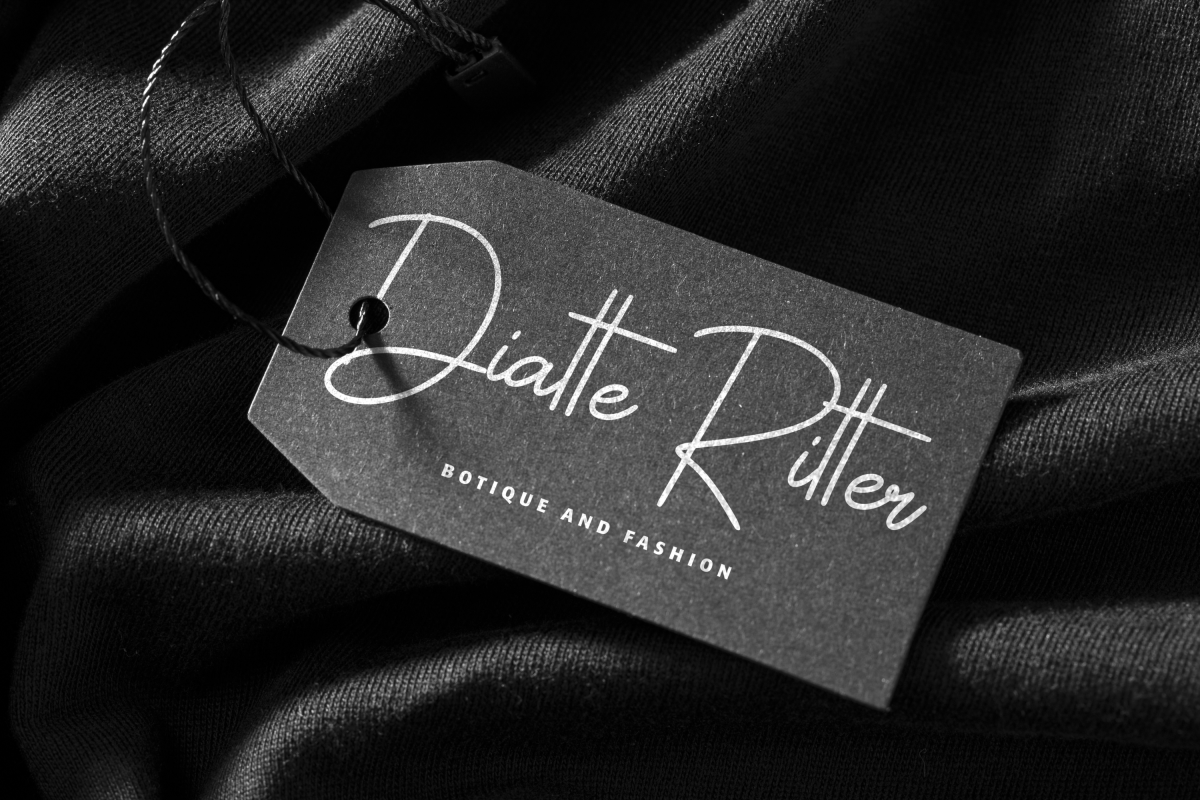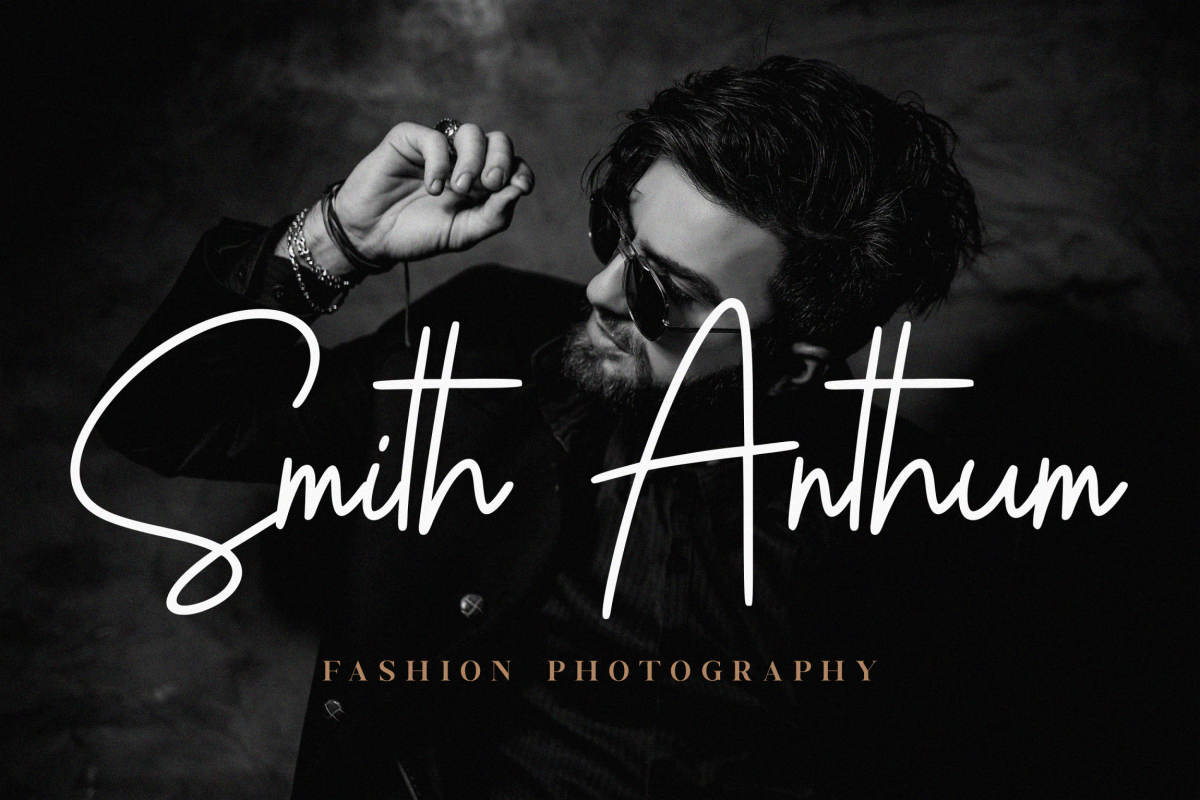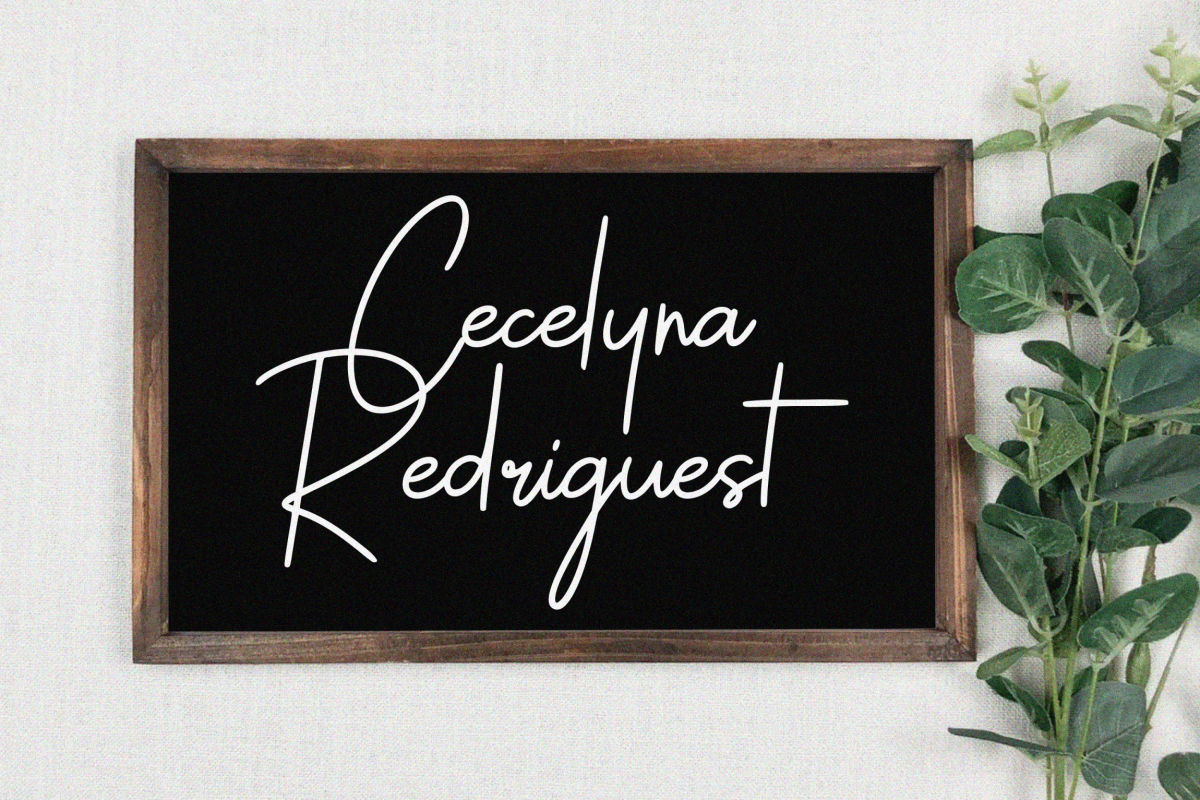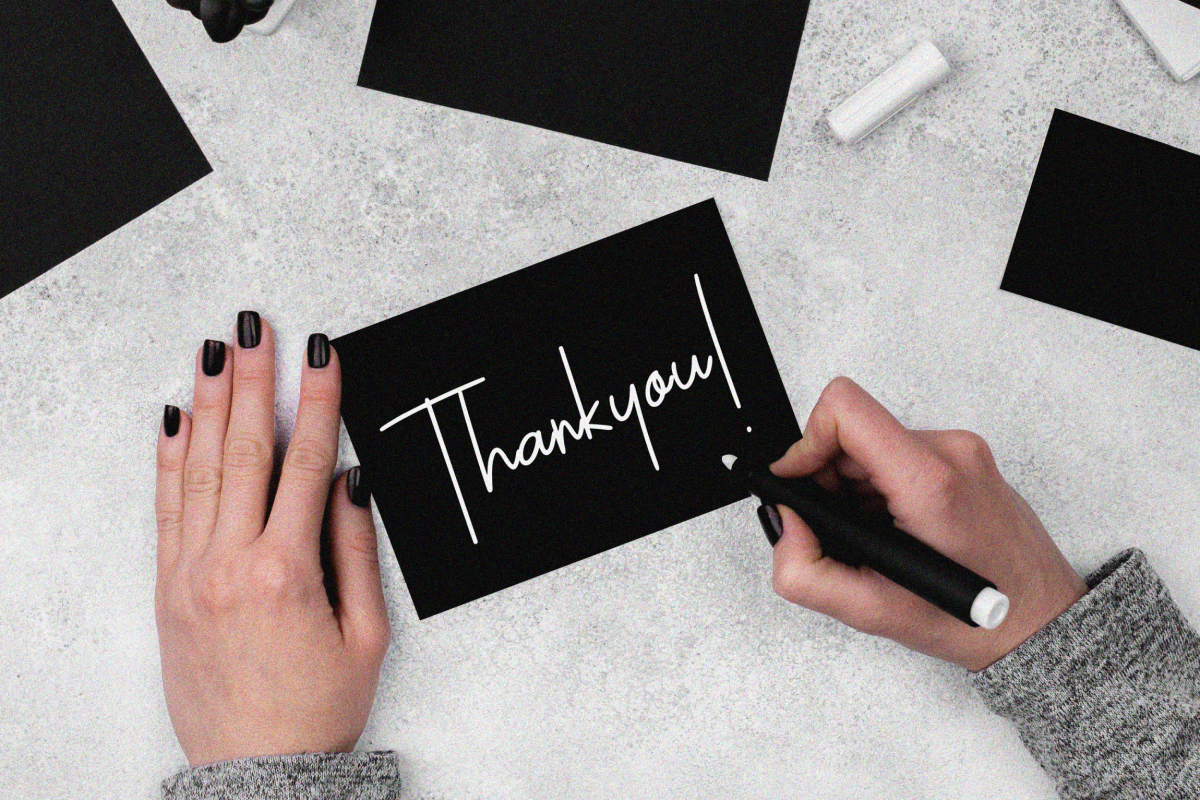
Sallyna Cattalya Font
Sallyna Cattalya Handwritten Font
It’s a A Monoline Signature Font. Sallyna Cattalya is perfect for product packaging, branding project, megazine, social media, wedding, or just used to express words above the background.